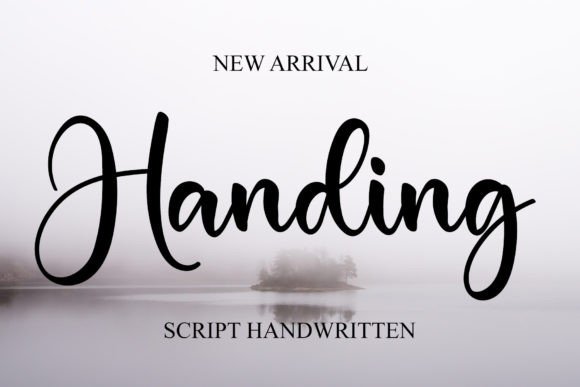
Immerse yourself in the world of Handing Font, a captivating script font that will transform your creative endeavors into masterpieces. Handing Font is the epitome of elegance and charm, meticulously crafted to evoke a sense of timeless beauty in every design.
With its graceful strokes and delicate details, Handing Font is the perfect choice for logos, branding projects, labels, photography, watermarks, special events, and any project that demands a touch of sophistication. Its PUA encoding ensures effortless access to a treasure trove of glyphs and swashes, empowering you to unleash your creativity without limits.
Handing Font is more than just a collection of characters; it's an invitation to explore a realm of endless possibilities. Whether you're a seasoned designer or just starting your creative journey, Handing Font will elevate your work to new heights.
Step into the realm of Handing Font and let your imagination soar. Experience the joy of creating designs that exude elegance and charm. Allow Handing Font to be your creative companion, guiding you towards design excellence.